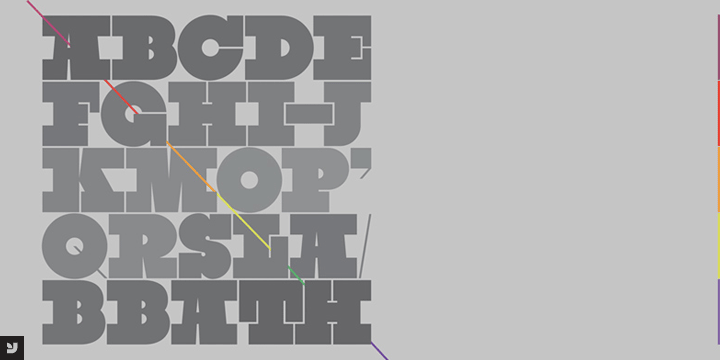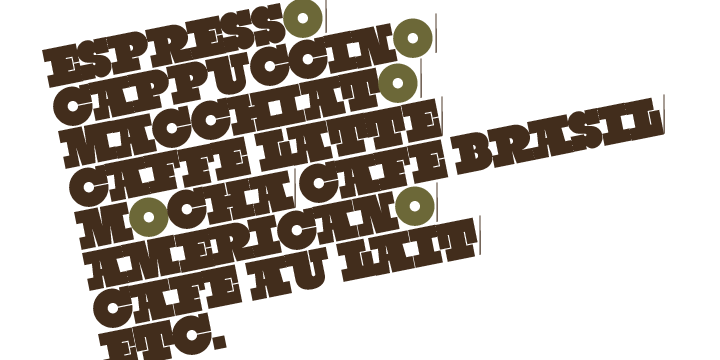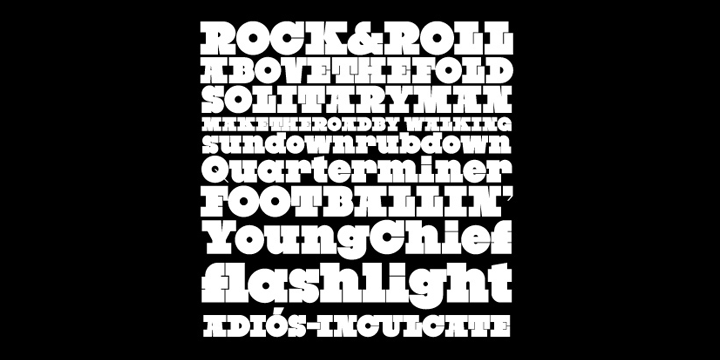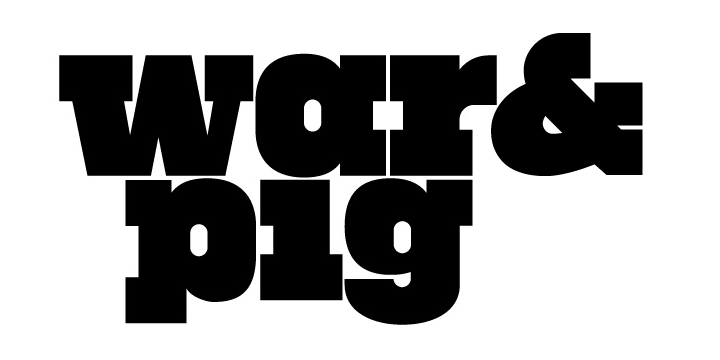
The idea of stagnation has always given Stefan Kjartansson anxiety. Born in Iceland, he got his BA in graphic design from Iceland Arts in 1993. After illustrating two best-selling children’s books, he moved on to graphic design. Too poor to purchase typefaces, he started making his own and released a deconstructive slab serif with Garagefonts.